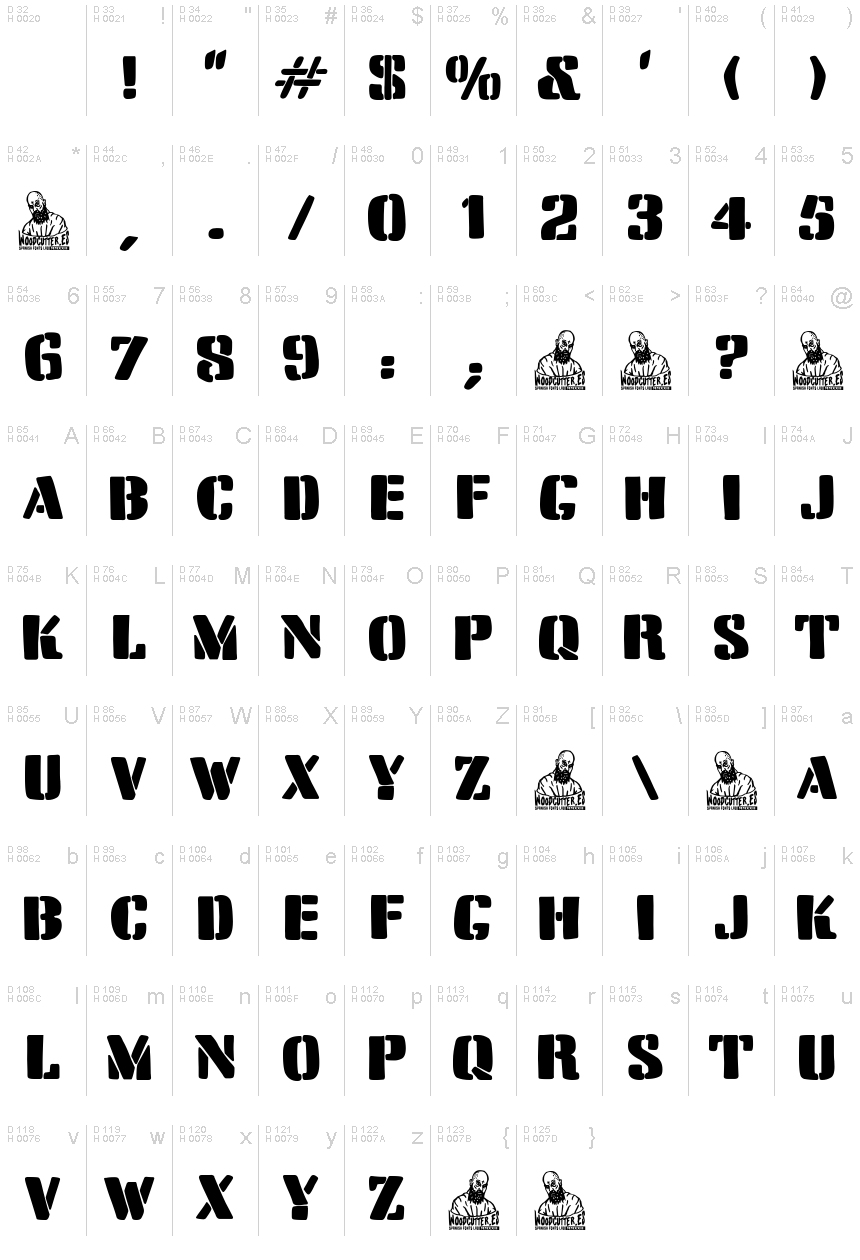
Breaking Stencil News
Breaking Stencil News, designed by Woodcutter, commands attention with its bold, military-inspired stencil style. The font's striking appearance and robust lines evoke a sense of strength and authority, making it an ideal choice for impactful headlines and eye-catching posters.
Its distinct stencil cuts add a layer of character, perfect for projects needing a gritty, industrial feel. Whether used in branding for tactical gear or setting the tone in action-packed movie titles, Breaking Stencil News delivers a powerful visual punch that won't go unnoticed.